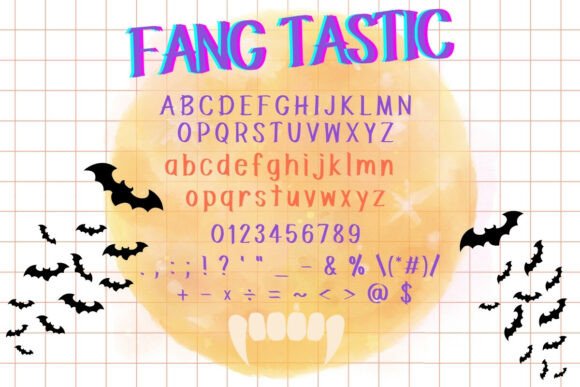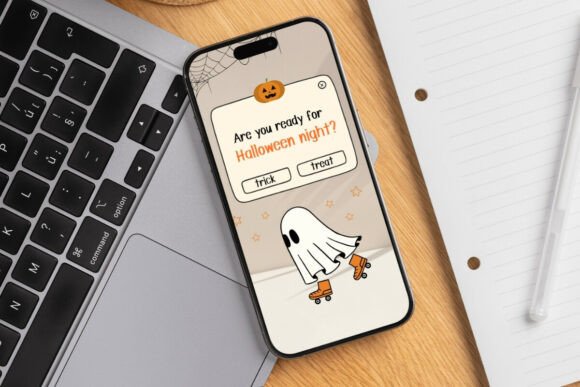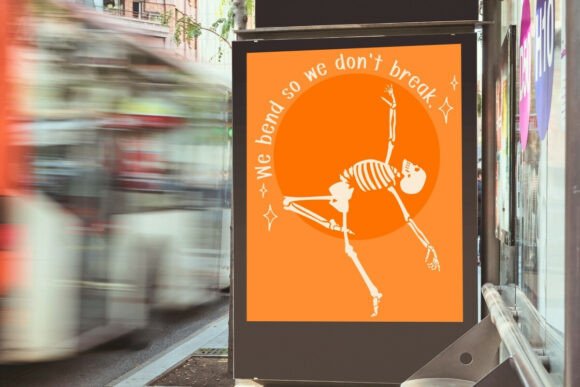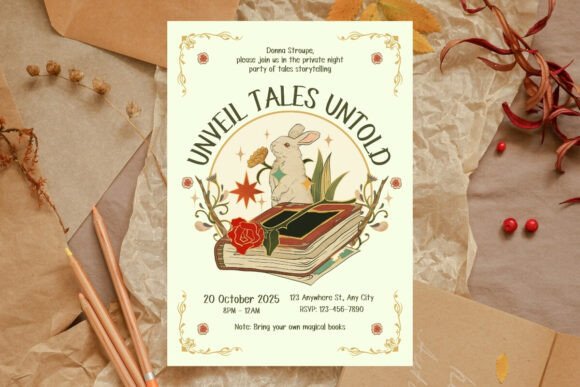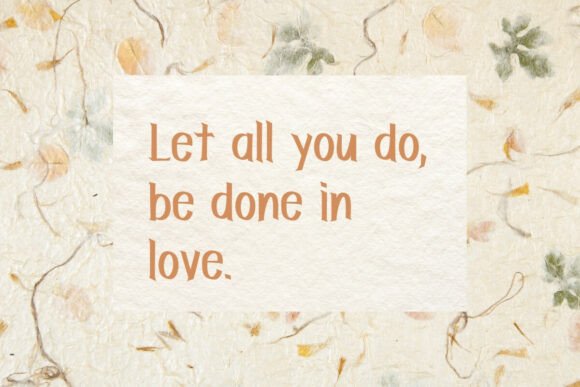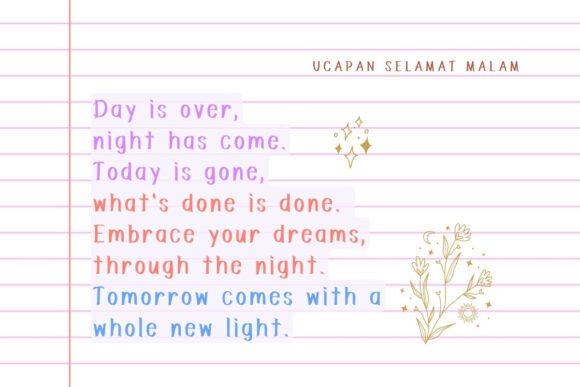
Fangtastic Font: Where Spooky Meets Stylish
As the sun sets on a crisp autumn evening, and the jack-o-lanterns begin to glow, I find myself craving a font that captures the essence of the spooky season. The perfect project idea hits me – a Halloween party invitation that screams “come and join the fun!” But, I need a font that’s both eerie and endearing, a font that will set the tone for a night to remember.
Enter Fangtastic Font – a playful, handwritten font that combines sharp edges with a hand-drawn, scary-cute style. Inspired by vampires and Halloween vibes, this versatile font is perfect for a wide range of creative projects, from Cricut crafts to digital designs. Whether you’re a small business owner, crafter, or digital creator, Fangtastic Font is the perfect addition to your design arsenal – it’s spooky, unique, and unforgettable.
Fangtastic Font Key Features
- Unique Characteristics: Includes 20 hand-drawn fang-like ornaments and 30 fang-inspired swashes
- Kerning and Ligatures: Includes advanced kerning and ligature support for improved readability
Fangtastic Font Review
Overall, I’m impressed with the Fangtastic Font. Here’s what I like about it:
- ✨ The font’s unique, gothic-inspired design is perfect for horror-themed projects or anything that needs a touch of mystery.
- ✨ The font’s bold lines and distinctive letterforms make it easy to read, even at smaller sizes.
- ⚠️ The font’s limited character set may be a problem for users who need to type special characters or languages that require a wide range of characters.
- ⚠️ The font’s bold, dramatic design may not be suitable for all types of projects, particularly those that require a more subtle or elegant look.
Overall, I think the Fangtastic Font is a great addition to any designer’s toolkit. While it may not be perfect, its unique design and ease of use make it a great choice for the right project. Just be aware of its limitations and use it accordingly.
Tips for Getting the Most Out of Fangtastic Font
Experiment with different font sizes and colors to create striking visuals. Use the font in combination with other design elements to create a cohesive look. Consider pairing Fangtastic Font with a neutral background to maximize its impact.
Fangtastic Font is ideal for creating spooky, whimsical, and playful designs. Use it for Halloween-themed projects, children’s book illustrations, or fantasy-inspired graphics.